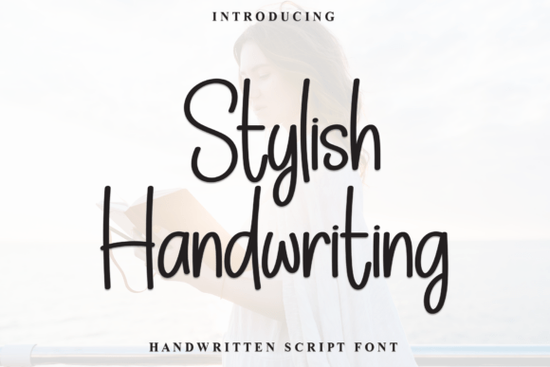
Looking for a font that feels like your own handwriting only neater and more polished? The Stylish Handwriting Font is a modern handwritten script typeface designed to bring a natural, personal feel to your projects. Whether you're working on branding, quotes, invitations, or print-on-demand designs, this font offers the kind of casual elegance that's hard to fake.
What makes a handwriting font look natural?
A good handwriting font shouldn't look robotic or overly uniform. The best ones mimic how a real pen moves across paper with slight variations in stroke weight, natural spacing, and a rhythm that feels human. Stylish Handwriting does this well with its tall, slightly narrow letterforms and smooth, flowing strokes. The result is a typeface that reads as genuine without sacrificing readability.
What sets it apart is the balance it strikes. It's playful enough for creative projects but clean enough for professional use. That versatility matters if you're a designer who works across different types of content from social media graphics to product packaging.
What can you use a handwritten script font for?
Handwritten fonts work in more places than most people think. Here are some common uses:
- Branding and logos especially for small businesses that want a personal, approachable identity
- Wedding invitations a flowing script pairs beautifully with elegant stationery
- Quotes and social media posts adds warmth and personality to text-based content
- Greeting cards perfect for heartfelt messages that feel hand-lettered
- Print-on-demand products mugs, tote bags, and notebooks all benefit from a personal font style
- Website headers and blog graphics draws attention without looking overdone
If you're specifically working on wedding stationery, pairing Stylish Handwriting with a more traditional wedding invitation script can create a lovely contrast between casual and formal.
How do you access alternate characters and swashes?
One practical feature of Stylish Handwriting is that it's PUA-encoded. That stands for Private Use Area, and it means every glyph, swash, and alternate character is accessible even in programs that don't natively support OpenType features.
Having access to alternates also gives you more creative control. You can swap out letterforms to avoid repetition, add decorative swashes to initials, or create a more custom look without manually editing each letter.
Does it pair well with other fonts?
A handwriting font rarely works alone. Most designs benefit from pairing a script with a complementary serif or sans-serif. Stylish Handwriting's clean lines make it easy to combine with structured typefaces without creating visual clutter.
Is this font a good fit for print-on-demand sellers?
If you sell on platforms like Etsy, Redbubble, or Merch by Amazon, font choice directly affects how your designs perform. A font that looks too generic won't stand out, and one that's too decorative can be hard to read at smaller sizes.
Stylish Handwriting works well for print-on-demand because it strikes that middle ground distinct enough to catch the eye, but clean enough to stay legible on products like apparel, drinkware, and stationery. Its warm, approachable tone also appeals to a broad audience, which helps when you're designing for different niches.
Quick checklist before using this font in your next project
- Test readability preview the font at the actual size it will appear on your product
- Pair it wisely combine with a simple sans-serif for body text to keep designs balanced
- Explore alternates dig into the swashes and glyph variations for a more custom feel
- Consider your audience handwritten fonts work best when warmth and personality are the goal